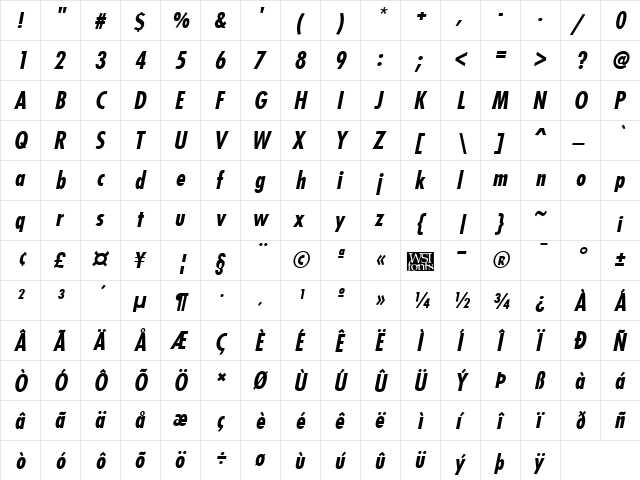
FuturistCondensed Bold Italic Font Preview
Design Context for FuturistCondensed Typeface
FuturistCondensed channels digital-age aesthetics through its sharp, structured letterforms — ideal for brands that want to signal innovation. The dynamic lean of this cut emphasises speed and emphasis in any layout. Its bold stroke weight gives it real presence on the page. The condensed width makes it efficient for tight spaces without sacrificing legibility.
Pro Tip: Try FuturistCondensed with generous letter-spacing in UI labels and navigation — the geometric forms benefit from room to breathe.